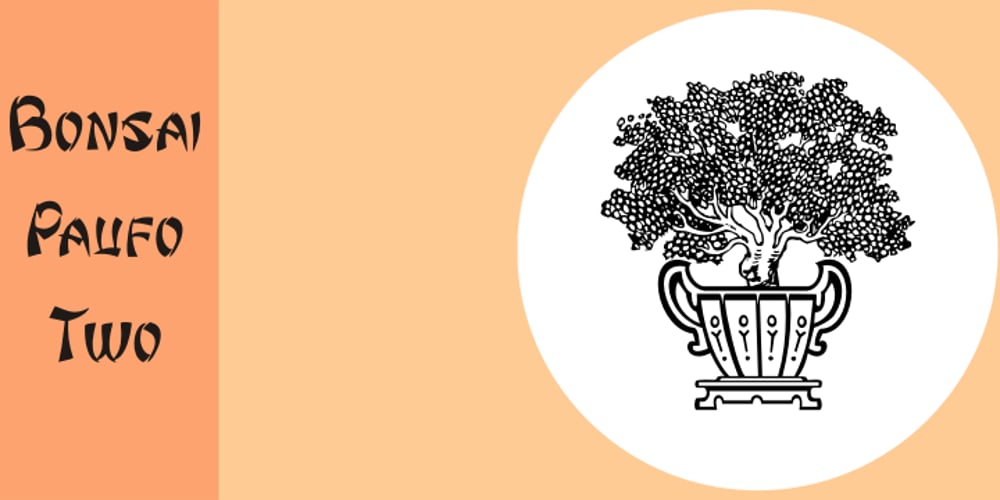
Bonsai Paufo
Bonsai Paufo font
Bonsai Paufo Font Family was designed by Chyrllene K and published by Intellecta Design. Bonsai Paufo contains 2 styles and family package options. Bonsai Paufo are a collection of dingbats fonts inspired in the ancient art of Bonsai. A beautiful work with organic forms and sensibility with the taste of the vegetal world, by Chyrllene K, who brings you with an amazing extra gift: Buying the family pack (two fonts) you get a special free bonus: the Victorian Advertising EPS PACK 2 with ten beautiful artworks (in eps) inspired in the Victorian ages magazine advertisings (see the banners). See all the glyphs from BonsaiPaufo in the pdf brochures at the gallery section.